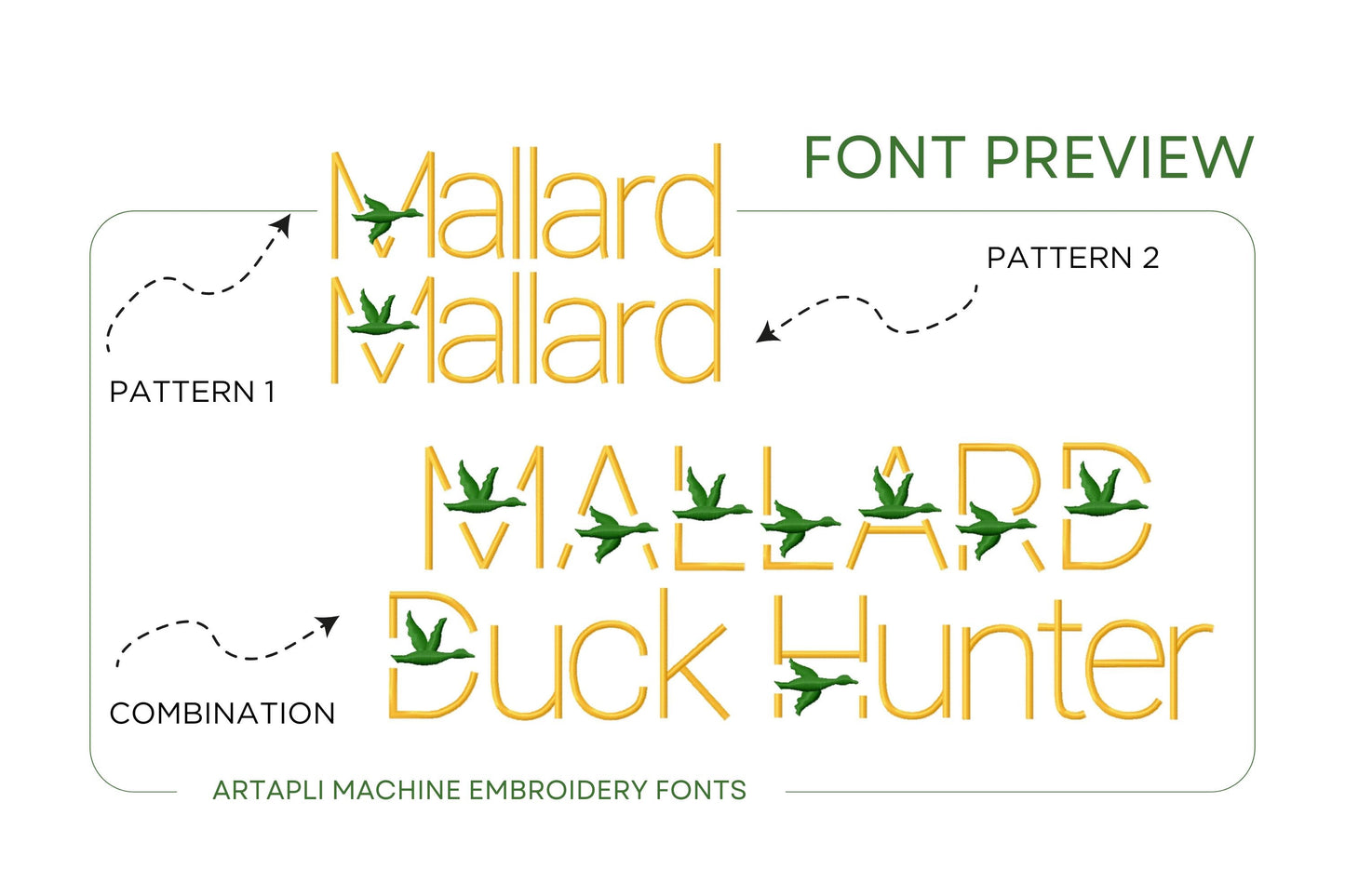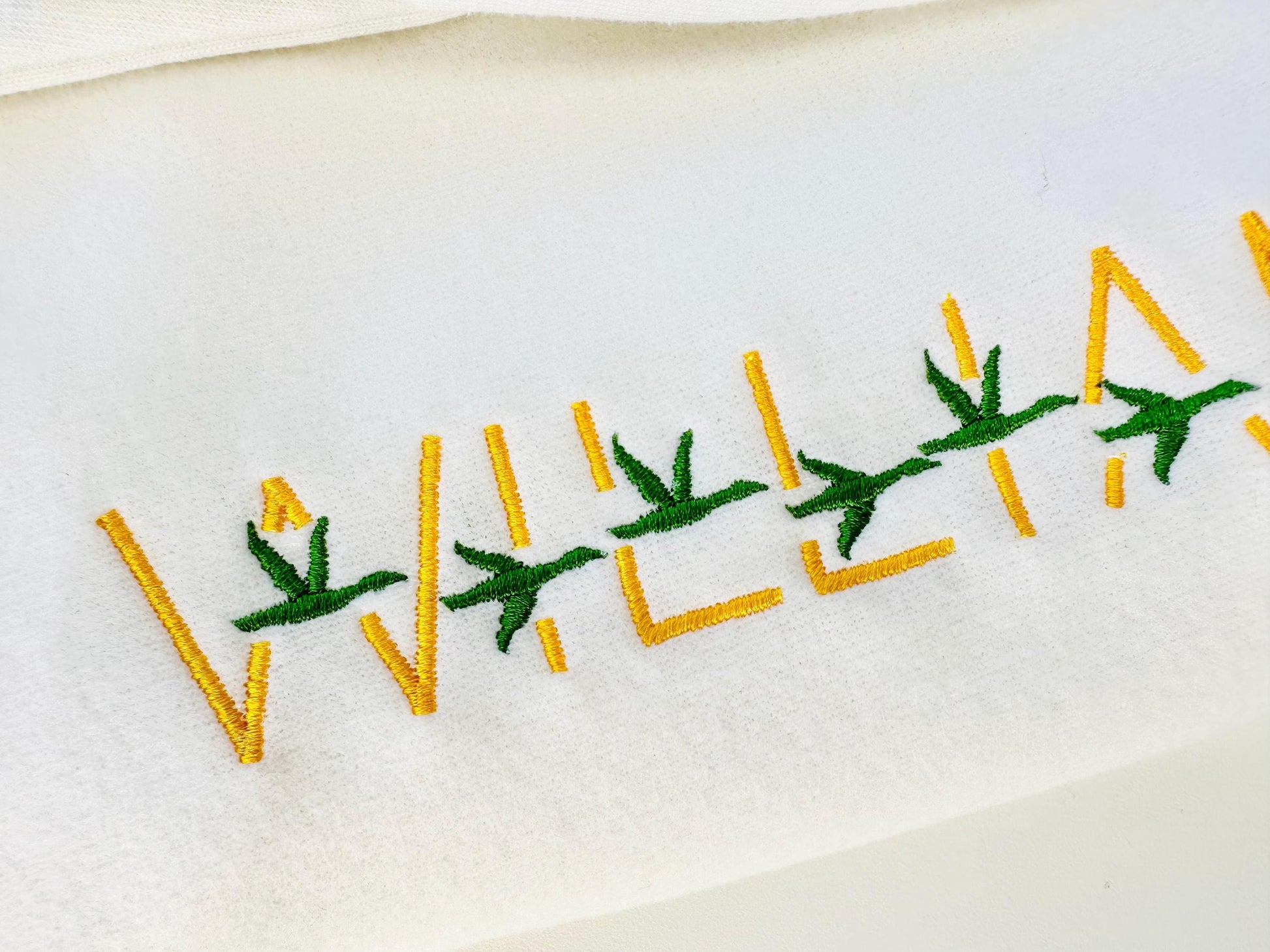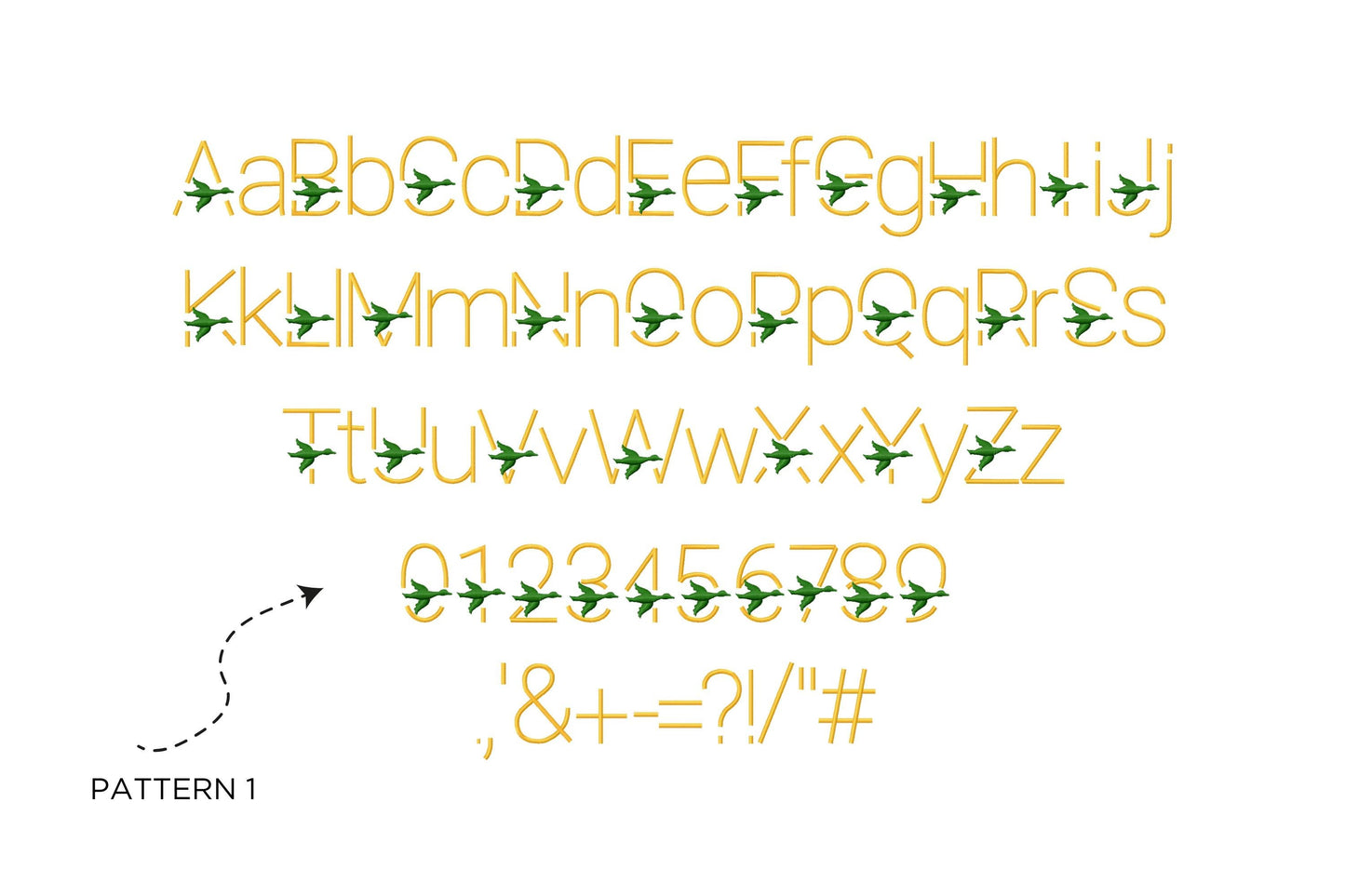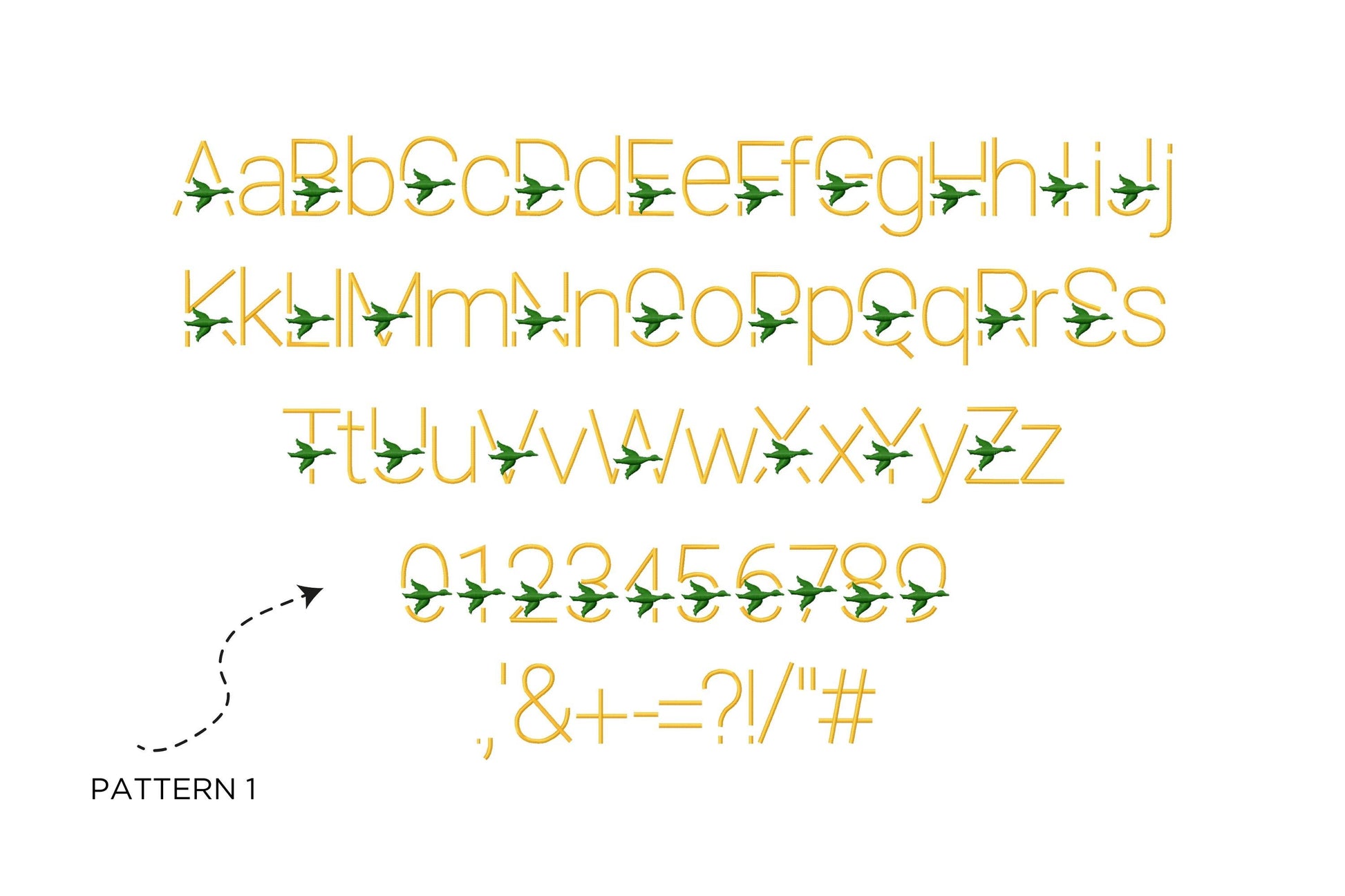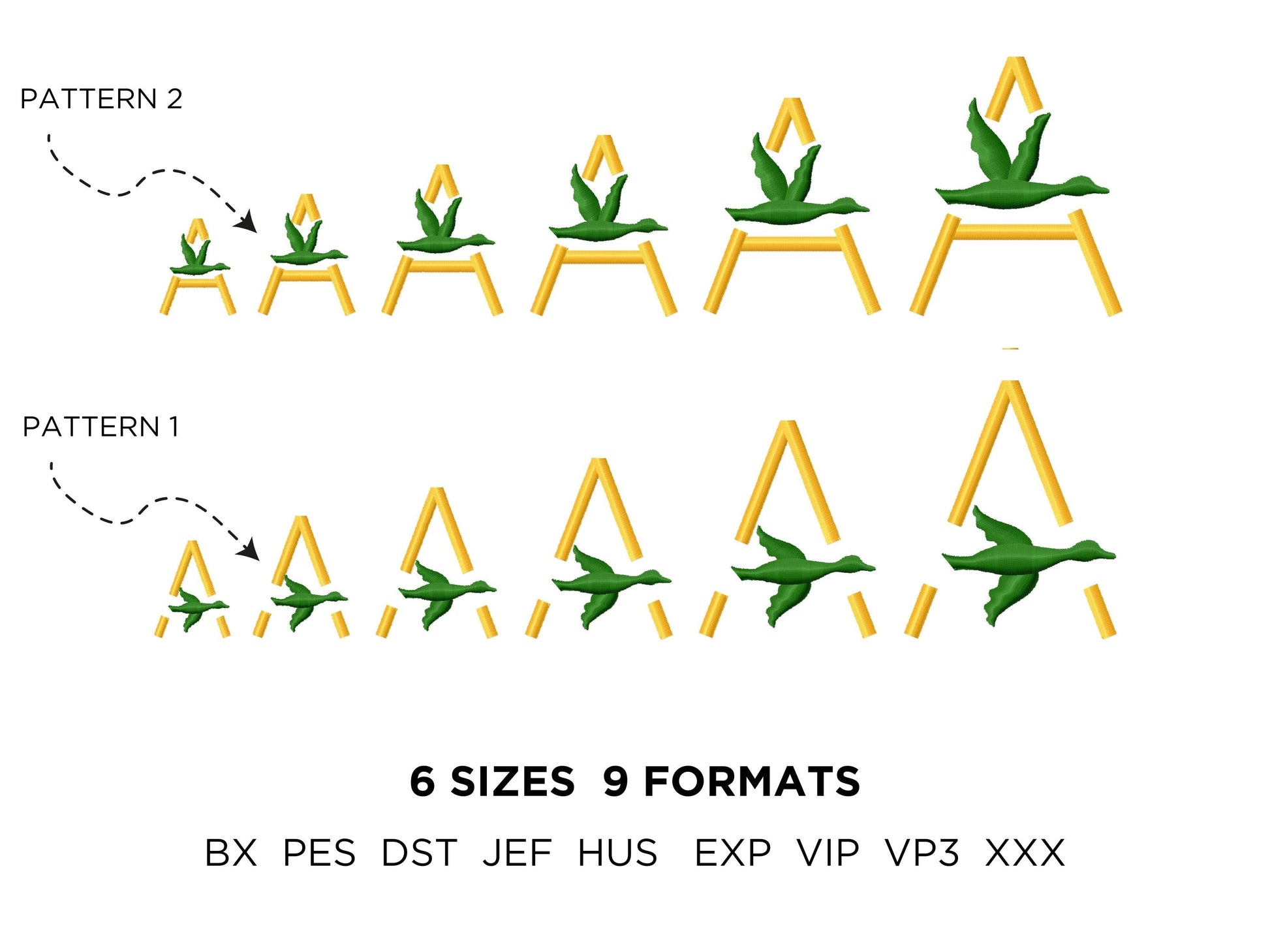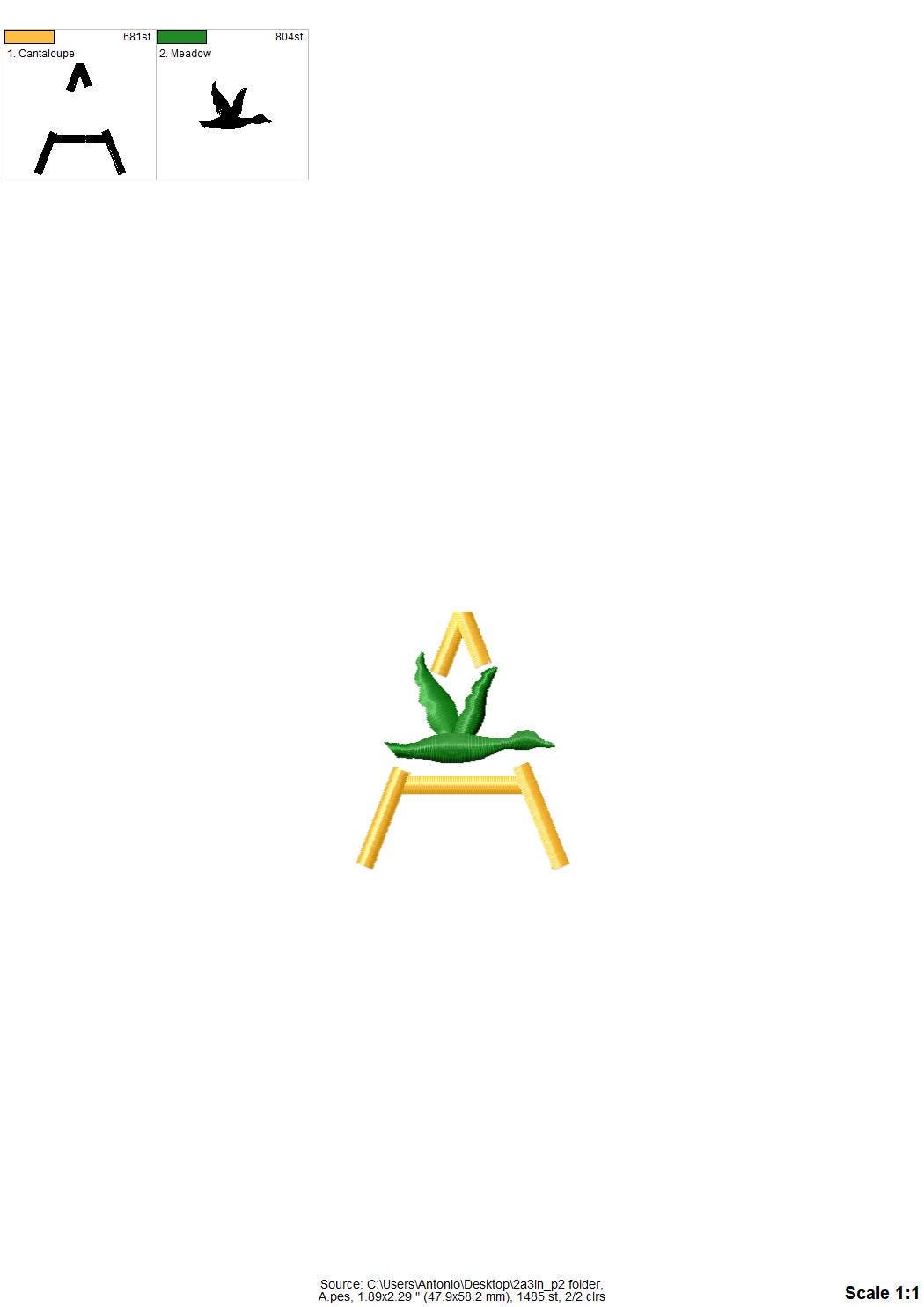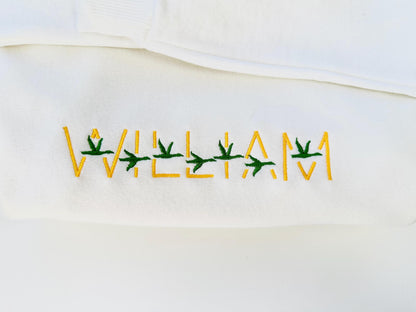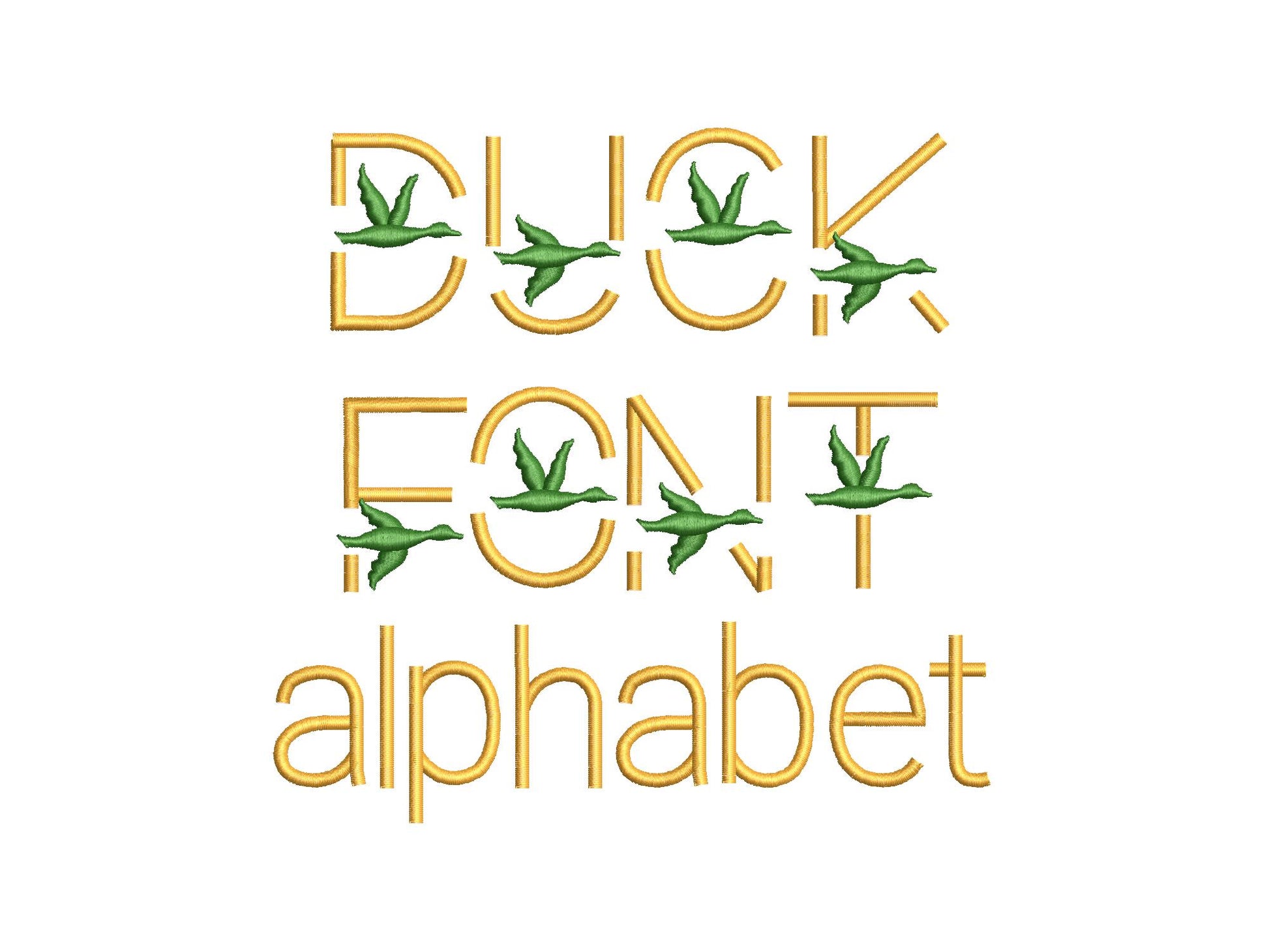
Or click to open the linkA satin stitch block font with a flying mallard duck. Great for hunters, boys' and men's shirts, caps, bags and monograms.
Two styles: uppercase letters and numbers with a flying duck, placed high or low, and plain lowercase letters and punctuation. Six sizes: 1, 1.3, 1.6, 2, 2.3 and 2.7 inches.